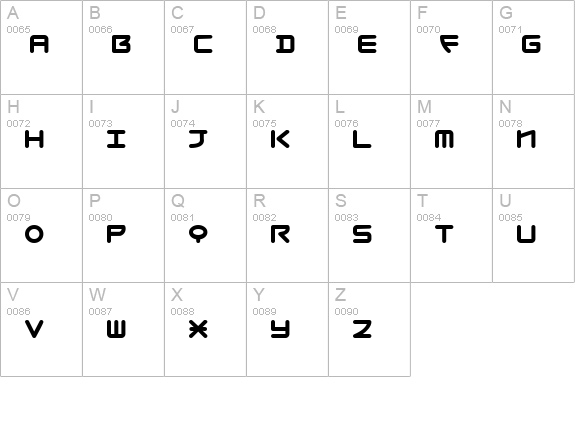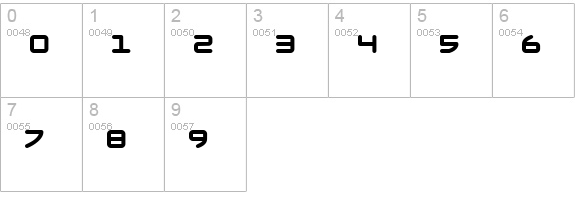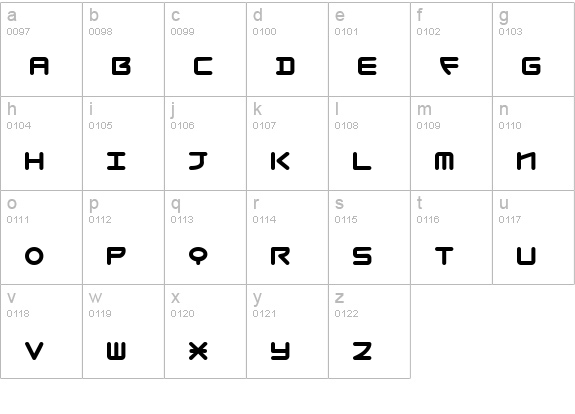
SeoulStacking Font Details
SeoulStacking font is a modern and stylish typeface that effortlessly blends elegance with a touch of playfulness. Its unique design features sleek lines and bold curves, making it perfect for a wide range of design projects. Whether you're creating eye-catching logos, striking headlines, or trendy social media graphics, SeoulStacking is sure to make your text stand out. What sets SeoulStacking font apart is not only its visual appeal but also its accessibility. This versatile font is available for free download at FontsMarket.com, allowing designers and creatives to easily incorporate it into their work without breaking the bank. With its smooth readability and versatile aesthetic, SeoulStacking is a must-have addition to any designer's font collection. Elevate your designs today with SeoulStacking font!